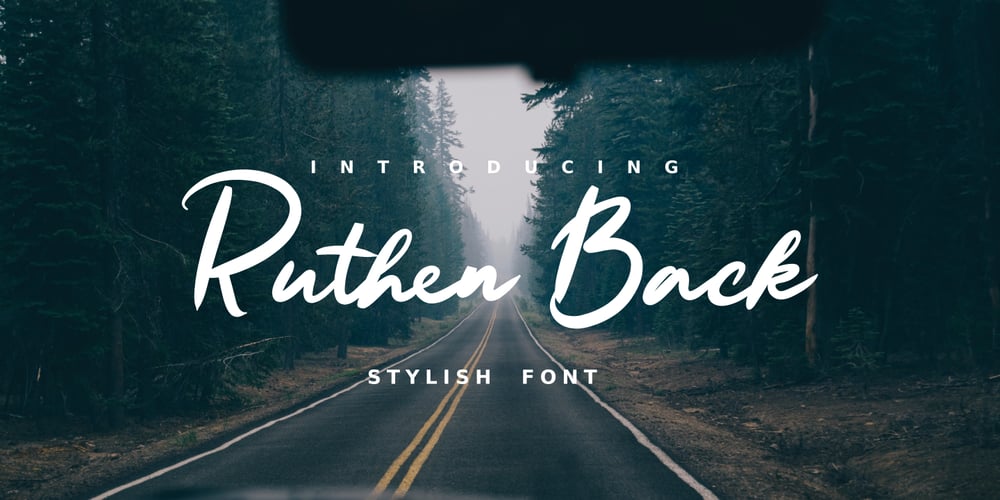
Ruthen Back Font Family was designed by Java Pep and published by Java Pep. Ruthen Back contains 1 styles and family package options. Ruthen Back – a Stylish Font, offering a different feel than my other fonts. A script font with a taste like signature fonts because all characters are based on the stylish signature, always catchy and elegant if you use it for personal name branding or logotype in your business. This font also looks outstanding in other projects such as greeting cards, tittle book/magazine, poster, neon light logo and etc. What’s featured? – Uppercase and lowercase – numeral and punctuations – Multilingual support – PUA encoded Thanks for using this font. For other questions about this font please contact me at java.indonesian@yahoo.com. Have a nice day!